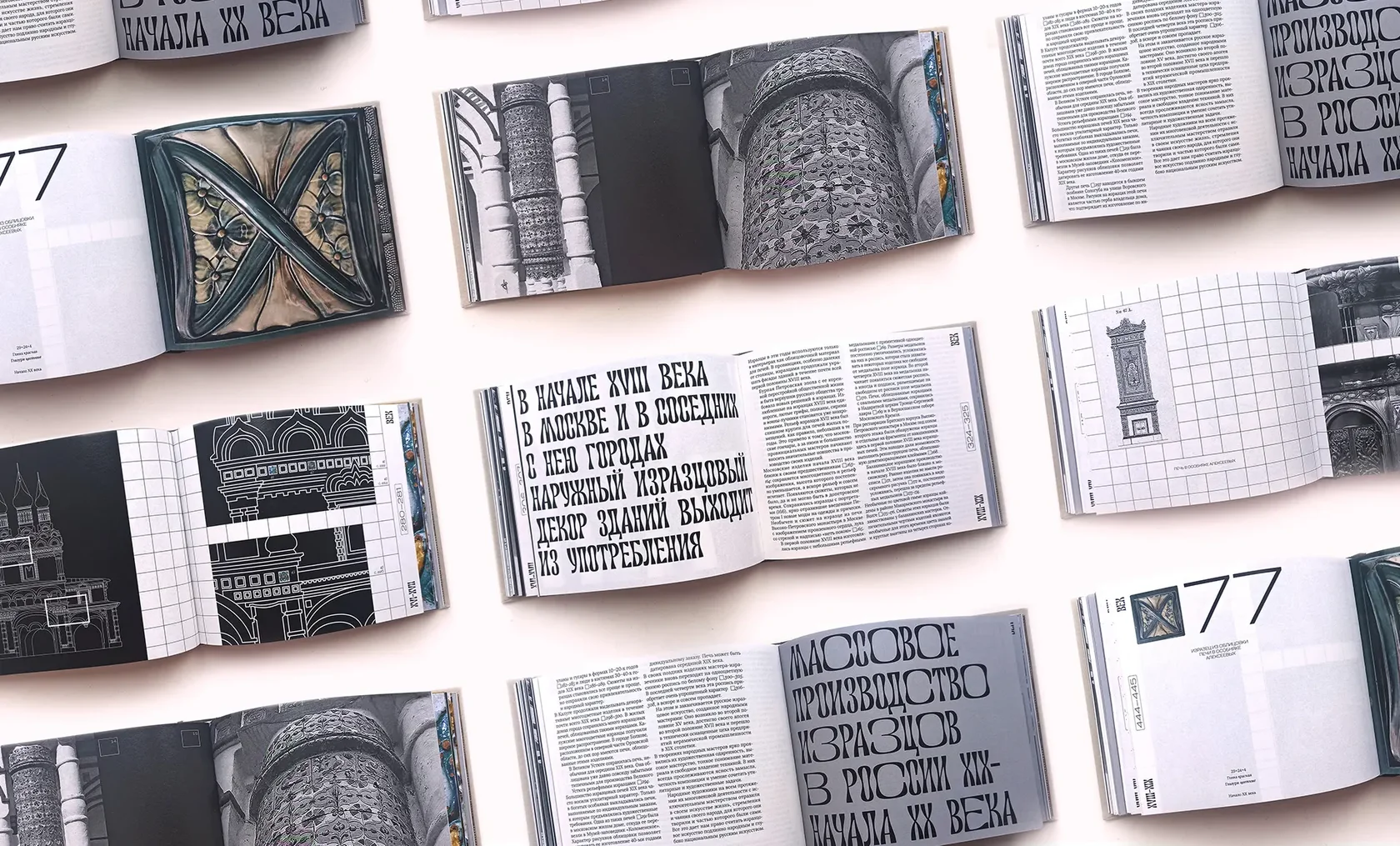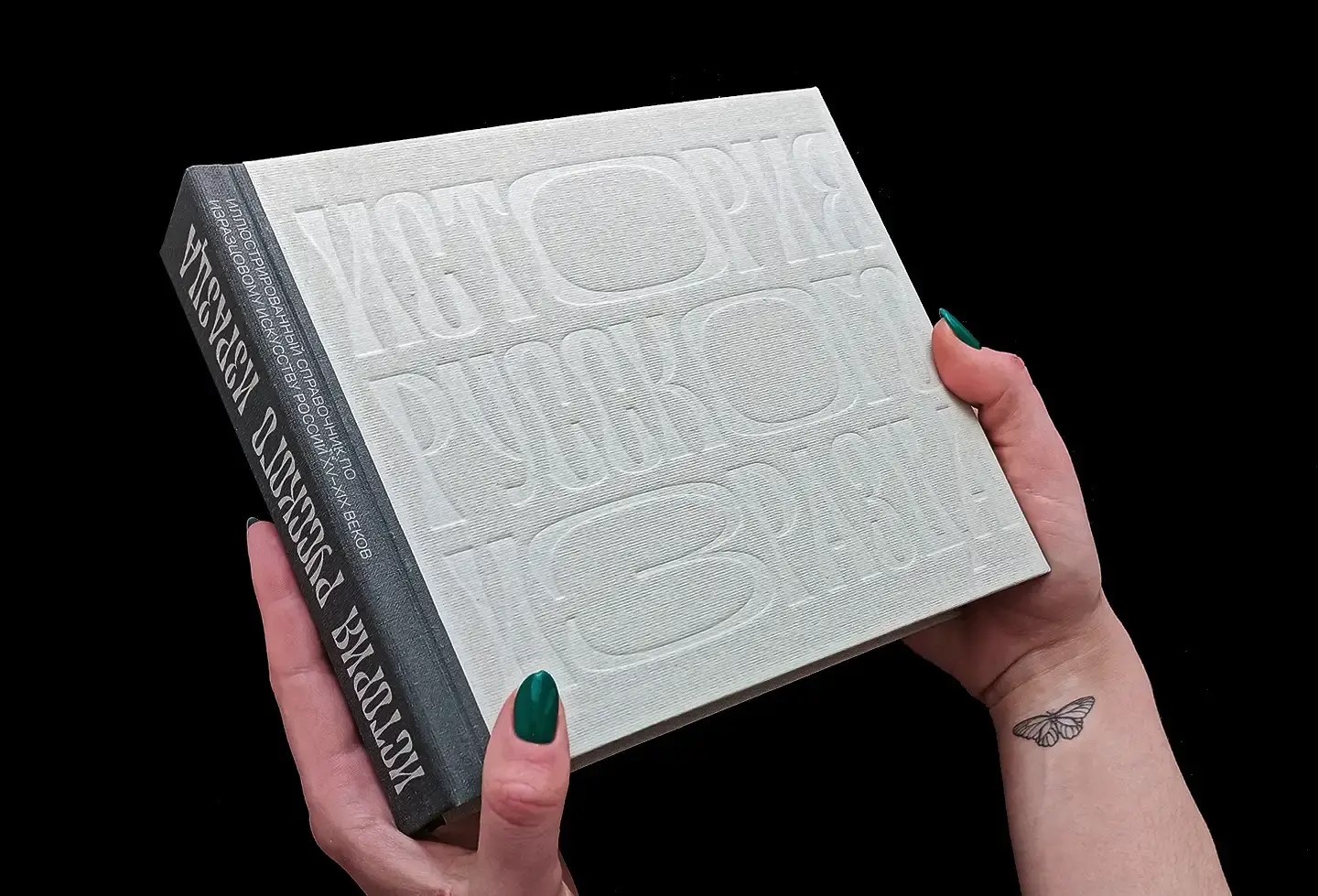
Hand-crafted Handbook of Russian Tiles
Font: SFT Royalbrick.
Use case: Book typography & publication design.
About the Project:
This illustrated handbook explores the heritage of Russian architectural ceramics, tracing their design, production and cultural role. SFT Royalbrick was created for this publication, drawing from nineteenth-century brick-makers’ marks uncovered in St. Petersburg and translated into a full display typeface that combines strong contrast, distinctive concave stems and a rhythmic texture. In the final layout, it serves large headlines and section identifiers, forming a visually rich backdrop to photography and archival material.
Why SFT Royalbrick?
Designing for a topic steeped in craft and material history, SFT Royalbrick brings structural authority while remaining visually expressive. Its architectural rhythm and ornamental details reflect the tactile nature of ceramic tiles, making it suited to a publication that blends heritage aesthetics with typographic experimentation.